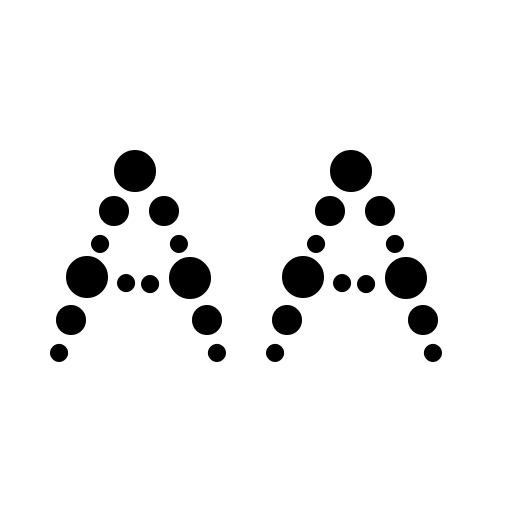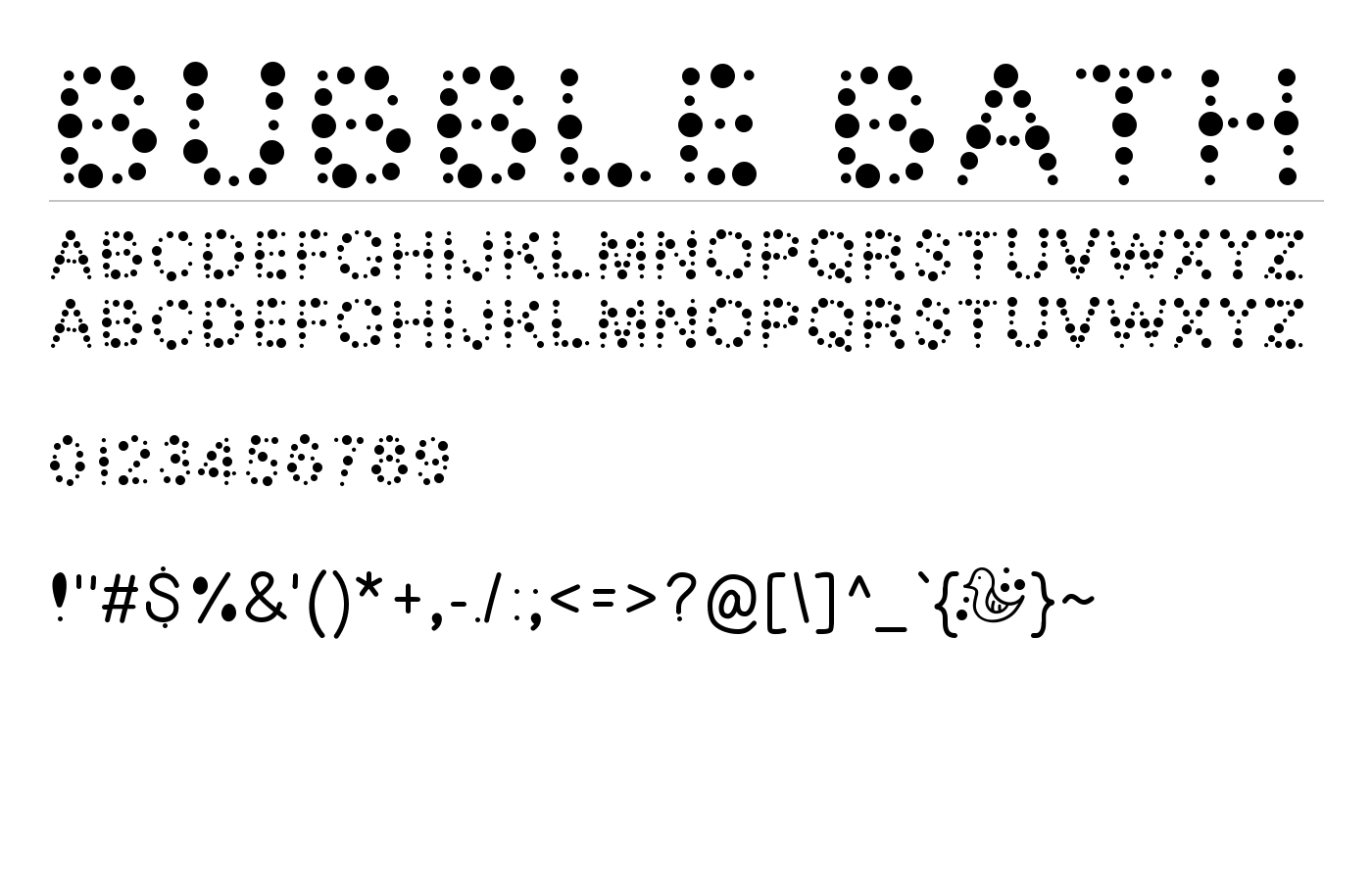
Bubble Bath is a playful, decorative sans serif font composed entirely of varying sized dots, giving it a bubbly and lighthearted feel. Its whimsical style is perfect for creative, fun projects like children's designs, party invitations, or casual branding where a lively and unique look is desired. This font works best in headlines or display uses where its distinctive, airy letterforms can shine and capture attention.
Bubble Bath Font
About Bubble Bath Font